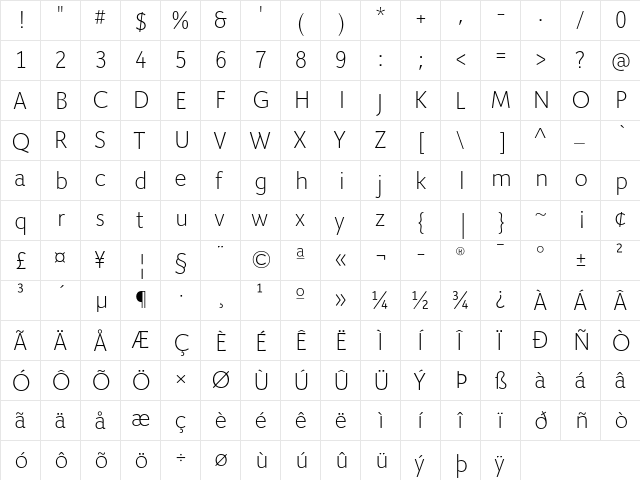
Giacomo LT Light
| Designer | James Montalbano |
Design Context for Giacomo LT Typeface
Giacomo LT offers clean, dependable letterforms without strong stylistic allegiance, making it a practical choice for designers who need flexibility. Its slender proportions lend an understated elegance to any composition.
Pro Tip: Use Giacomo LT in both headline and body roles to test its range before committing to a single application.